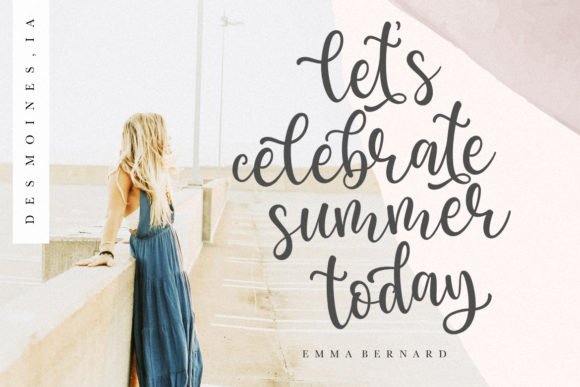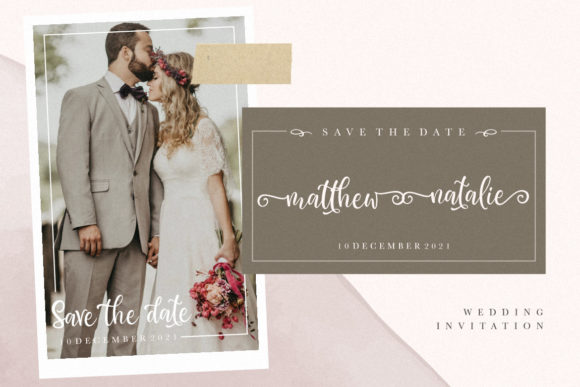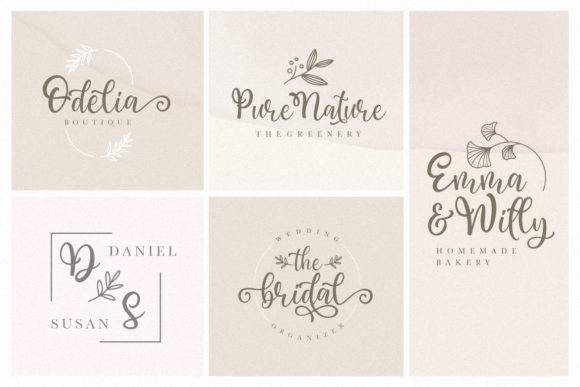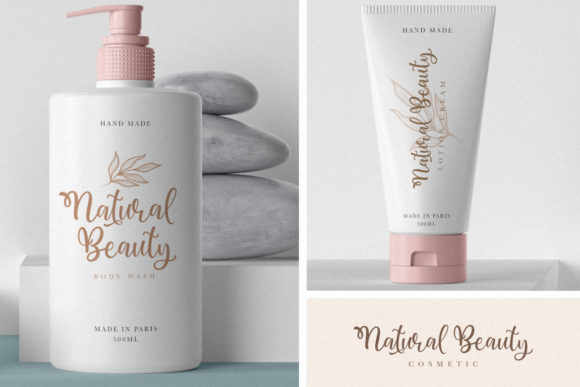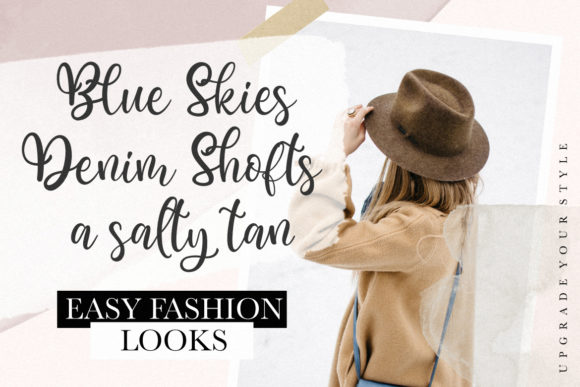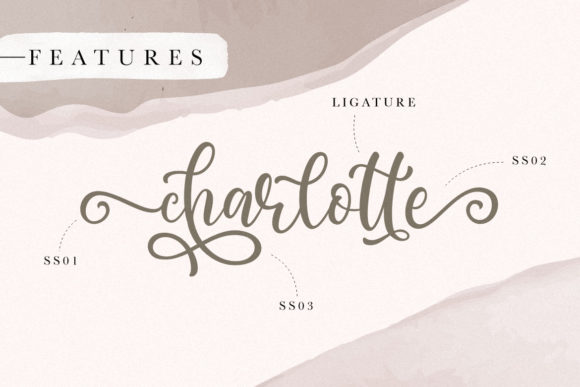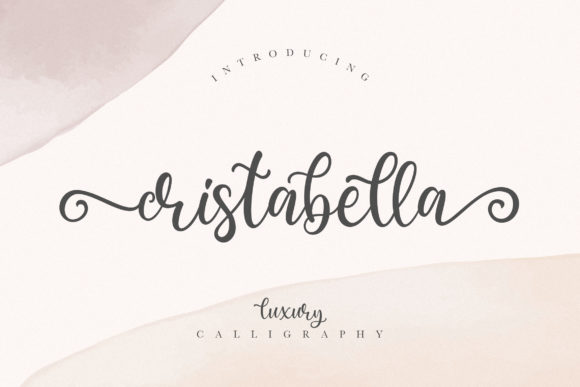
Cristabella Font: Elevate Your Creativity with Elegance
In the world of digital design, the right font can transform your creative project from ordinary to extraordinary. If you’re on the hunt for a font that combines elegance, magic, and versatility, look no further than Cristabella Font. This stunning handwritten font is meticulously crafted to add a touch of sophistication to any design, making it perfect for a wide range of creative endeavors.
The Charm of Cristabella Font
Cristabella Font is not just any ordinary font; it’s a magical handwritten script that exudes elegance and charm. Its carefully designed letters and swashes are perfect for creating visually appealing content that stands out. Whether you’re a designer looking for the perfect font for your Instagram posts, or a crafter seeking a beautiful calligraphy script for your DIY projects, Cristabella Font is the ideal choice.
Key Features of Cristabella Font
- Magical Handwritten Style: Cristabella Font boasts a unique, handwritten look that adds a personal touch to any project.
- Elegant and Versatile: Its elegant design makes it suitable for a variety of applications, from digital media to print materials.
- PUA Encoded: Being PUA (Private Use Area) encoded, Cristabella Font offers easy access to all glyphs and swashes, allowing for greater flexibility and creativity in your designs.
Applications of Cristabella Font
The versatility of Cristabella Font makes it suitable for a myriad of creative projects. Here are some of the ways you can use this beautiful font:
- Social Media Graphics: Elevate your Instagram posts, Facebook covers, and Twitter headers with the elegant and magical touch of Cristabella Font.
- DIY Projects: Add a personal and artistic touch to your DIY projects, such as handmade cards, journals, and craft tutorials.
- Branding and Marketing: Use Cristabella Font to create unique and memorable branding elements, such as logos, brochures, and business cards.
- Stationery and Invitations: Create beautiful digital or print stationery, invitations, and thank you cards that stand out.
Cristabella Font is more than just a font; it’s a tool that unlocks endless creative possibilities. Its magical handwritten style, combined with elegance and versatility, makes it a must-have for designers and crafters alike. Whether you’re looking to enhance your digital content, create stunning DIY projects, or develop a brand identity, Cristabella Font is the perfect companion. With its ease of use, extensive features, and the creative freedom it offers, Cristabella Font is set to become your go-to choice for all your creative endeavors.